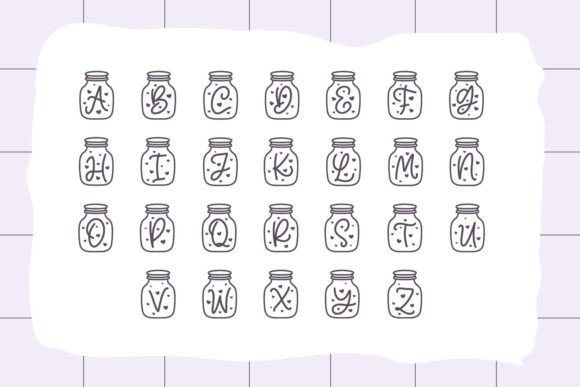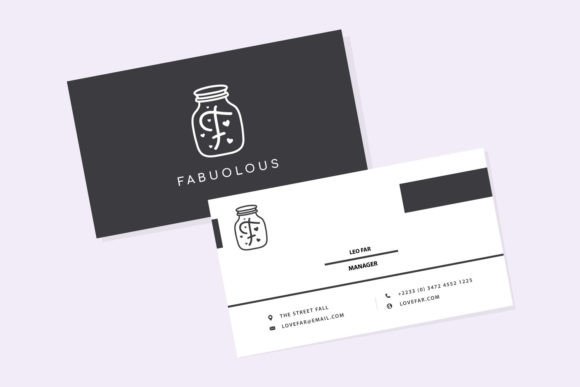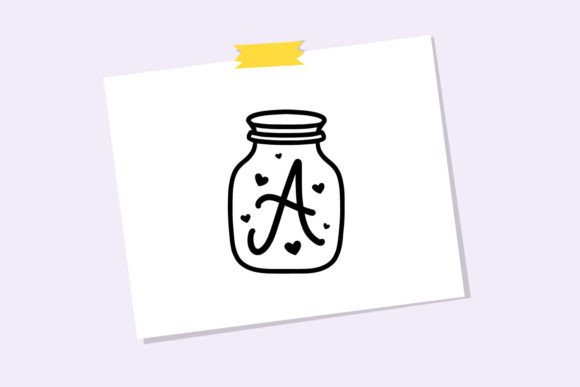
Introduction to Love Jar Monogram Font
As a crafter, there’s nothing quite like the thrill of seeing a project come to life. It’s the moment when all the pieces fall into place, and you step back to admire your handiwork – and that’s exactly what happens when you use the Love Jar Monogram Font.
This timeless and delicate decorative font is a game-changer for any creative project, offering high-quality letters that add a touch of elegance to your designs. Whether you’re working on a wedding invitation, a baby shower card, or a DIY gift tag, the Love Jar Monogram Font is the perfect design resource to elevate your project to the next level.
As a designer, you know that having access to a reliable and versatile font like the Love Jar Monogram Font can be a total lifesaver. And the best part? It’s available as a free download, making it a valuable addition to your design arsenal – especially when paired with a transparent background, which allows your beautiful letters to shine.
Key Features of Love Jar Monogram Font
- High-quality, unique monogram font perfect for creative projects
- Includes a transparent background, allowing for easy customization
- Comes in a single size, 300 DPI, making it suitable for various design applications
- Unique characteristics include intricate details and elegant design, perfect for weddings, birthdays, and other special occasions
- Can be used as a design resource for various creative projects, including invitations, cards, and digital art
Honest Review: Love Jar Monogram Font
I recently stumbled upon the Love Jar Monogram Font and I must say, it’s a great addition to my design resource library. The font is available for free download, which is always a plus in my book. The high quality of the font is evident, with crisp and clear lettering that’s perfect for a creative project.
- ✨ The Love Jar Monogram Font has a beautiful, hand-drawn feel to it, making it ideal for projects that require a touch of personality.
- ✨ The font is available with a transparent background, making it easy to use on a variety of design elements.
- ✨ The font’s monogram style makes it perfect for creating custom logos, labels, and other design elements.
However, there are a few limitations to consider: ⚠️ The font may not be suitable for large-scale text, as the lettering can become pixelated when enlarged. Additionally, the font may not be compatible with all design software.
Overall, I’m impressed with the Love Jar Monogram Font and would recommend it to designers looking for a unique and high-quality design resource. It’s perfect for a creative project that requires a personal touch, and the free download option is a bonus.
To get the most out of the Love Jar Monogram Font, use it in creative projects that require a high-quality, unique design element. Experiment with different font sizes, colors, and combinations to create a visually appealing design.
The Love Jar Monogram Font is commonly used in:
- Personalized gifts and decorations
- Branding and marketing materials